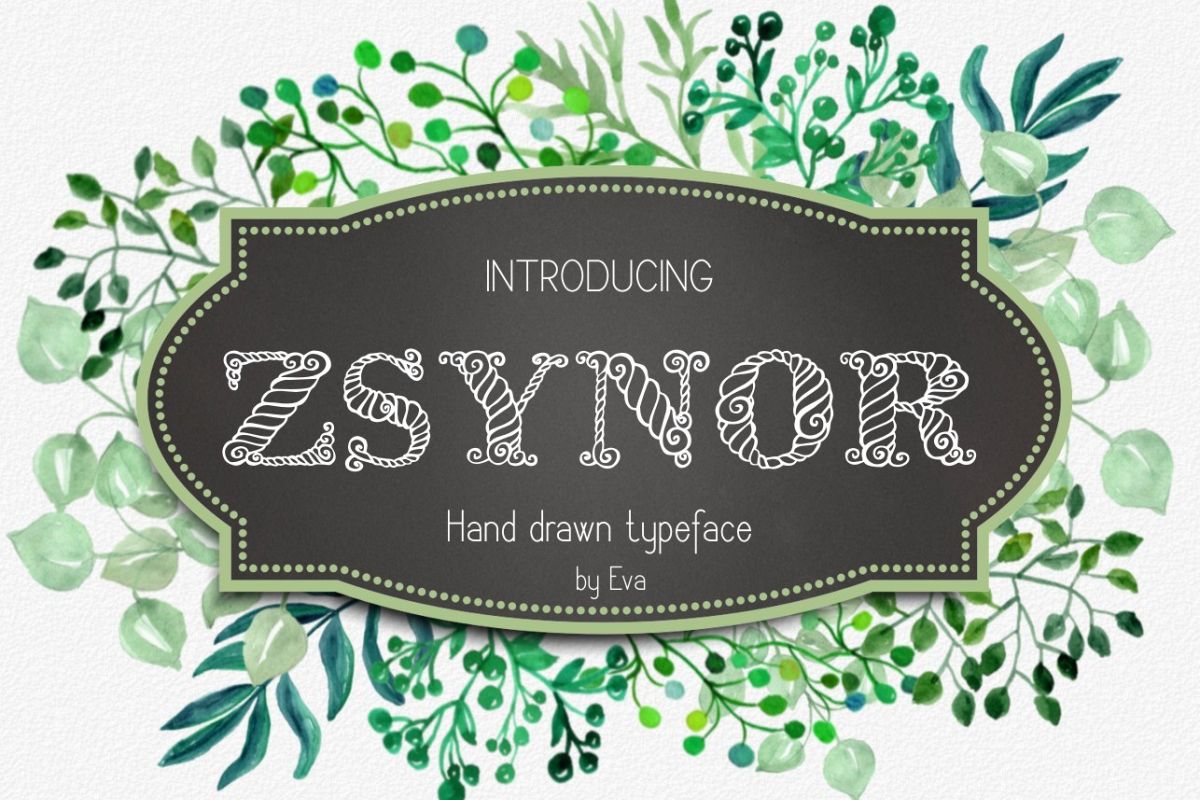
Zsynor Font
Zsynor
Zsynor font created for crafters who look for fresh fancy decorated letters.
The full font contains capital letters, numbers, punctuations and some other signs (see picture)
Zsynor is great for titling, signage, poster, flyers, t-shirts design, headlines and more!